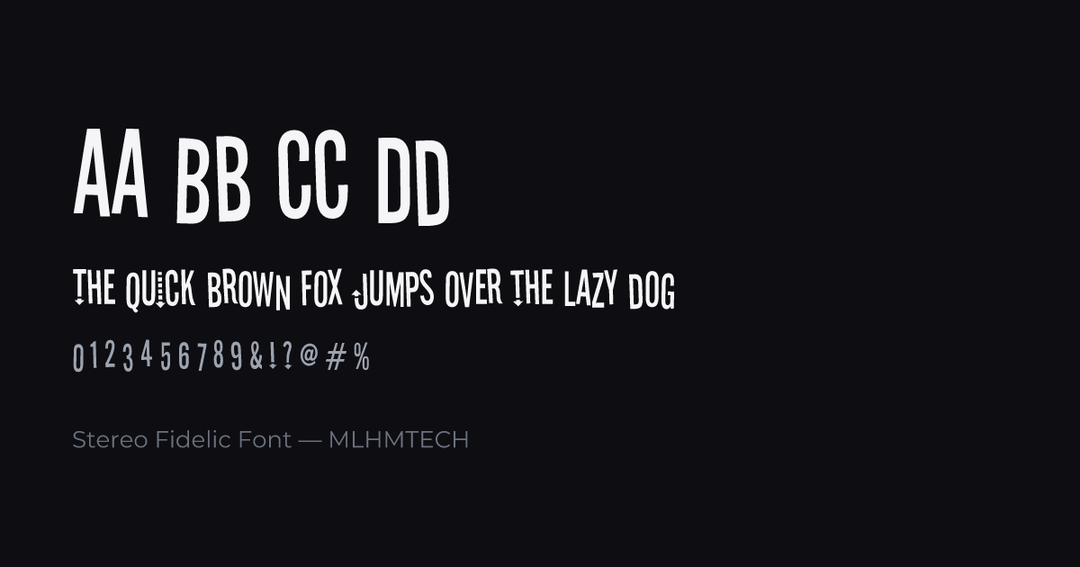
Stereo Fidelic Font
Stereo Fidelic is a retro display font with a groovy, psychedelic vibe. Ideal for logos, posters, and headlines that need a bold vintage touch.
Stereo Fidelic is a distinctive display typeface that channels the spirit of the 60s and 70s. Its bold, rounded letterforms and playful curves make it perfect for adding a retro, psychedelic feel to your projects. Whether you're designing a logo, poster, or album cover, this font will make your text stand out with personality.